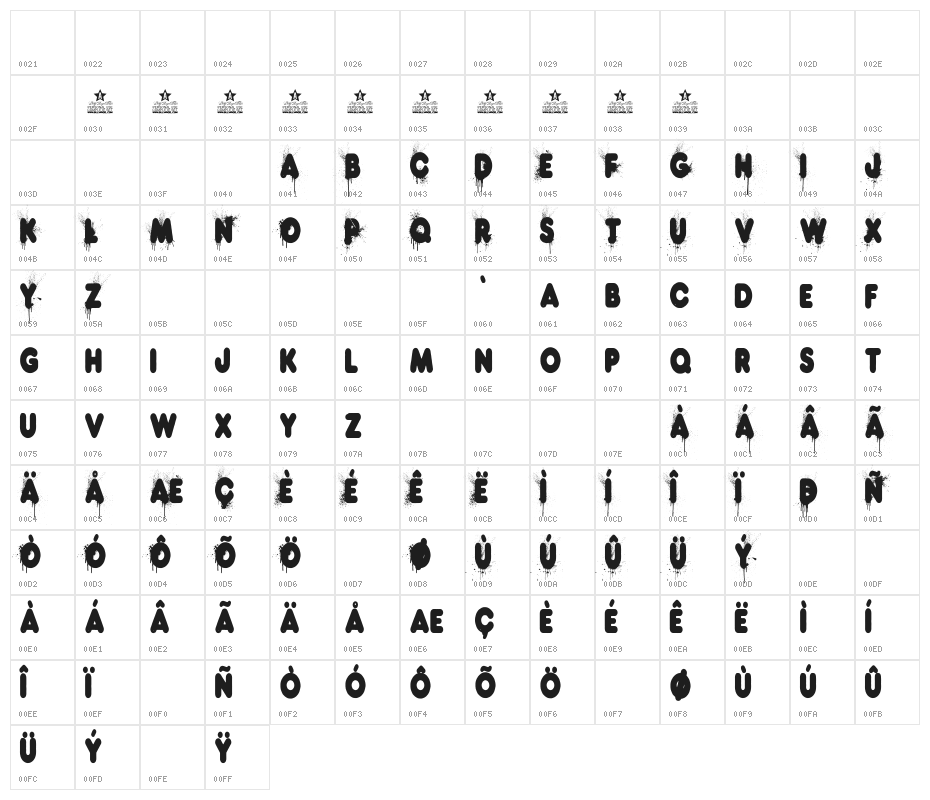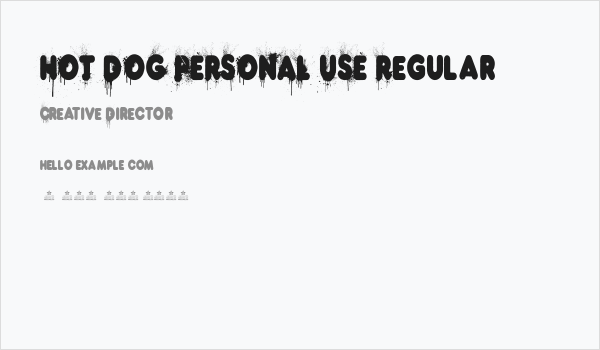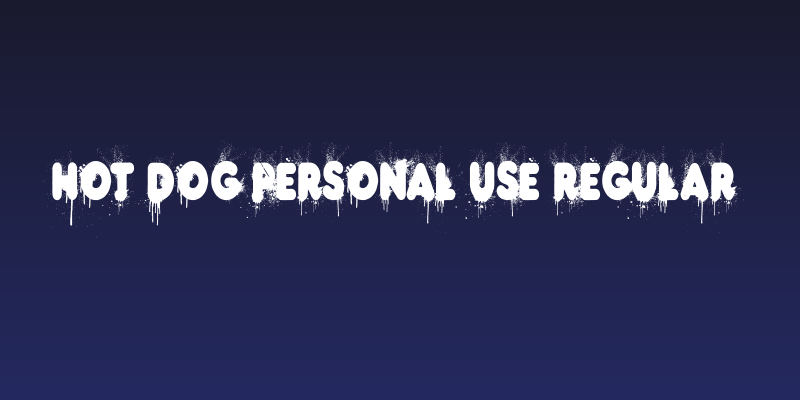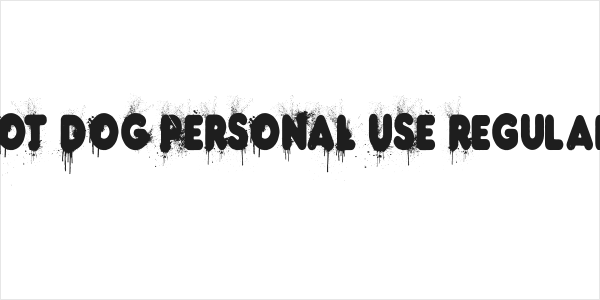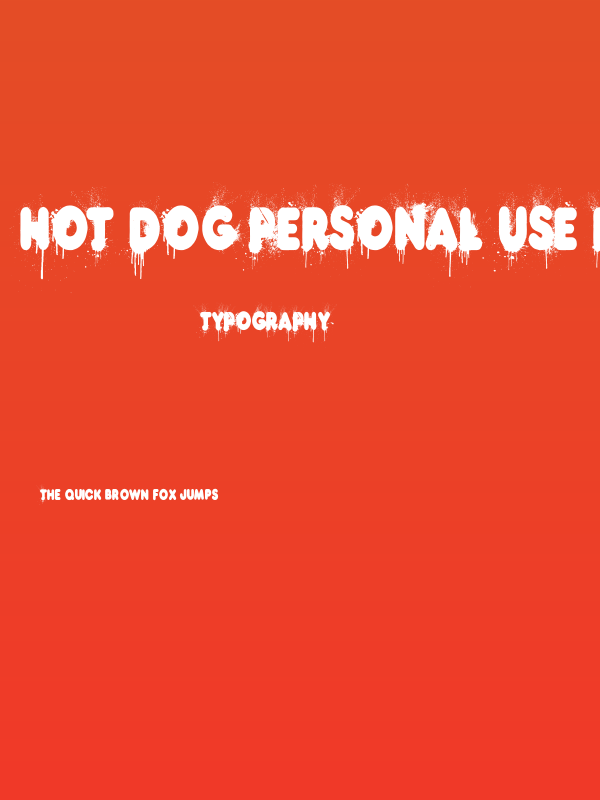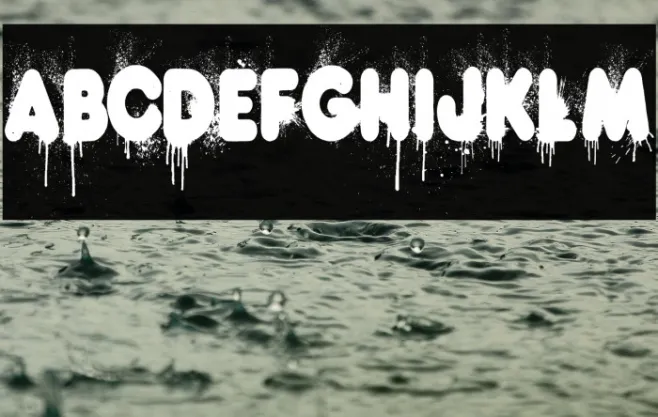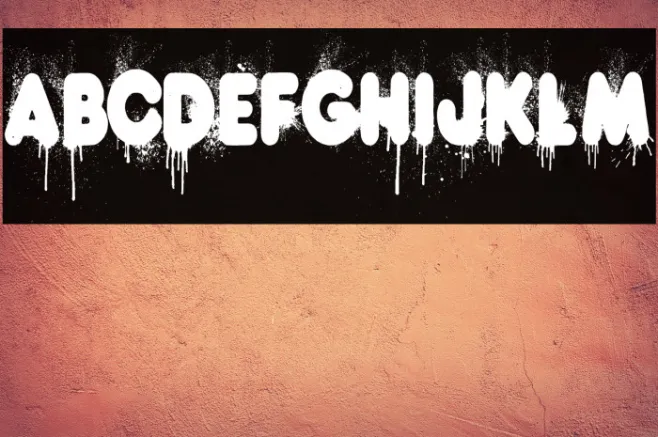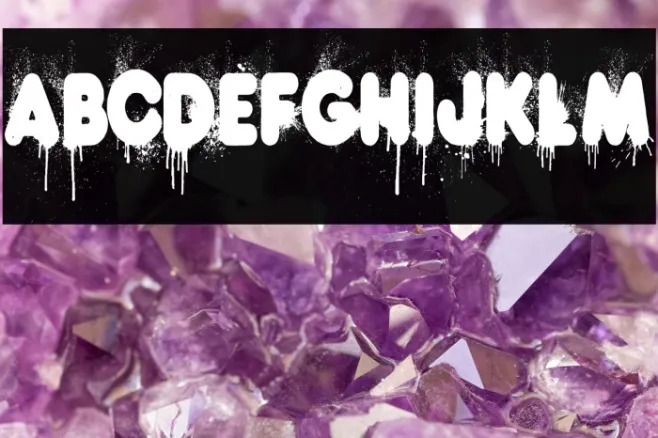
HOT DOG PERSONAL USE Regular Font
HOT DOG PERSONAL USE Regular Description
This font features a bold, playful style with a unique dripping paint effect that gives it an urban, graffiti-like appearance. The uppercase letters are rounded and thick, creating a strong visual impact. The dripping effect adds a dynamic and edgy feel, making it stand out in any design. The font is ideal for creative projects that require a bold statement, such as posters, album covers, or streetwear branding. Its distinct style is both modern and artistic, capturing attention with its unconventional design.
| Overall Style | Modern, Urban, Artistic |
| Proposed Projects | Ideal for posters, album covers, streetwear branding, and urban-themed designs. |